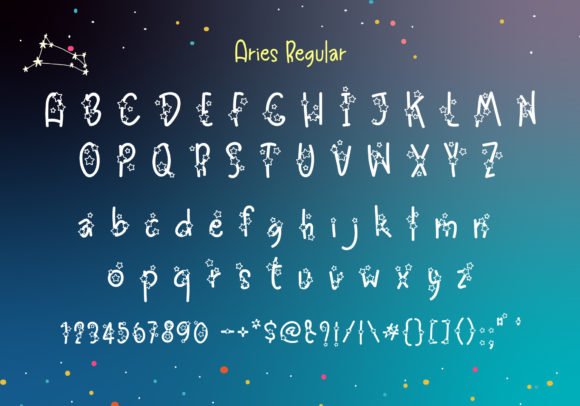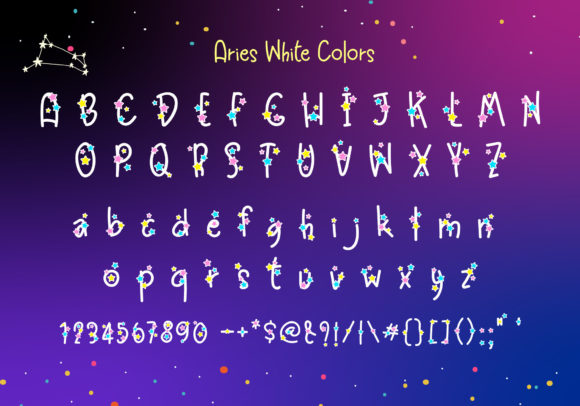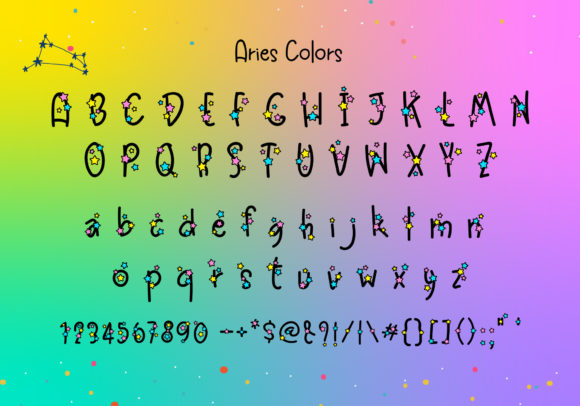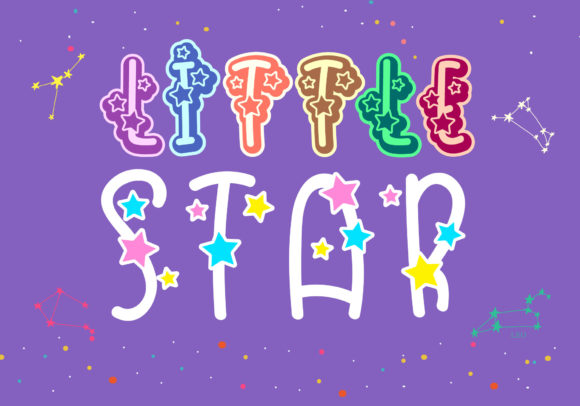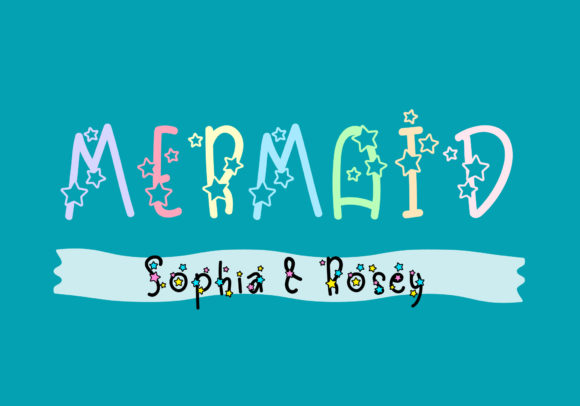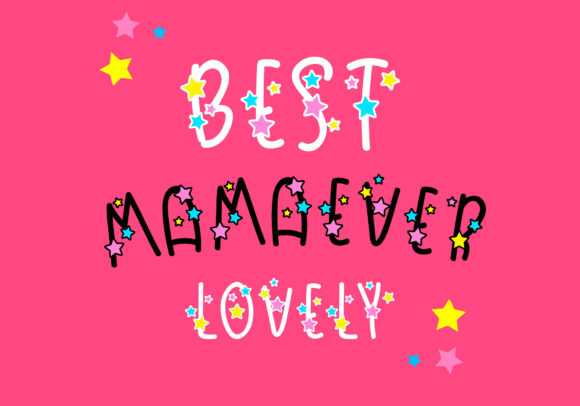
Aries Font: The Perfect Addition to Your Design Arsenal
Are you a designer or crafter looking for a font that can add a touch of fun and friendliness to your creations? Look no further than Aries Font! This decorative font is perfect for creating unique designs, book covers, birthday cards, greeting cards, and many other projects that require a cute and approachable vibe.
What is Aries Font?
Aries Font is a decorative font designed to bring a playful and whimsical touch to your designs. Its fun and friendly appearance makes it perfect for a wide range of projects, from creative crafts to professional designs. The font’s unique style is sure to capture the attention of your audience and leave a lasting impression.
Key Features of Aries Font
- Unique and Playful Design: Aries Font boasts a one-of-a-kind design that is sure to make your creations stand out from the crowd.
- Highly Versatile: This font can be used for a wide range of projects, including book covers, birthday cards, greeting cards, and more.
Uses of Aries Font
Aries Font is a versatile font that can be used for a variety of projects, including:
- Book Covers: Add a touch of whimsy to your book covers with Aries Font, making them stand out on bookshelves.
- Birthday Cards: Create personalized birthday cards with Aries Font, adding a playful touch to your greetings.
- Greeting Cards: Use Aries Font to create unique and eye-catching greeting cards for special occasions.
- Social Media Graphics: Add a playful touch to your social media graphics with Aries Font, making them more engaging and shareable.
- Craft Projects: Use Aries Font to add a personal touch to your craft projects, such as scrapbooking and DIY decorations.
Tips for Using Aries Font
To get the most out of Aries Font, here are some tips to keep in mind:
- Experiment with Different Sizes: Aries Font looks great in various sizes, so don’t be afraid to experiment to find the perfect size for your project.
- Combine with Other Fonts: Pair Aries Font with other fonts to create a unique and visually appealing design.
- Use in Combination with Images: Aries Font looks great when paired with images, so consider using it in combination with photos or illustrations.
Aries Font is a fun and decorative font that can add a touch of friendliness and approachability to your designs. Its versatility and ease of use make it perfect for designers and crafters of all skill levels. Whether you’re creating book covers, birthday cards, or social media graphics, Aries Font is sure to become a valuable addition to your design arsenal.